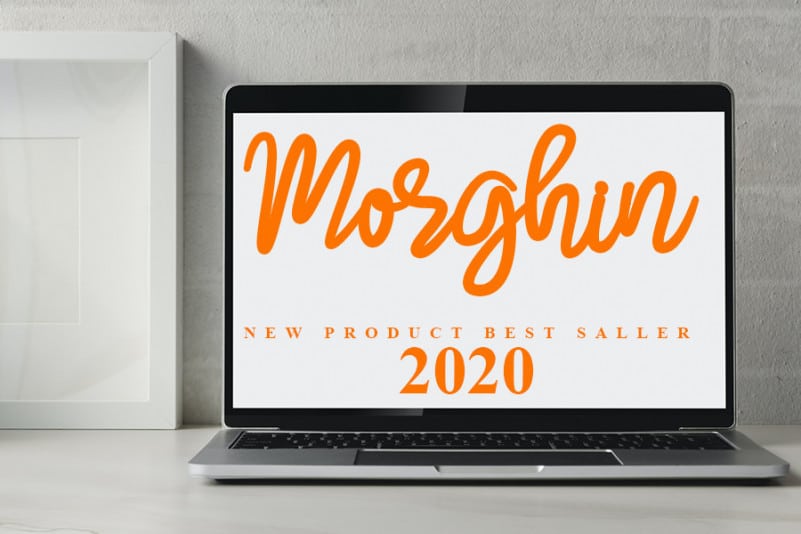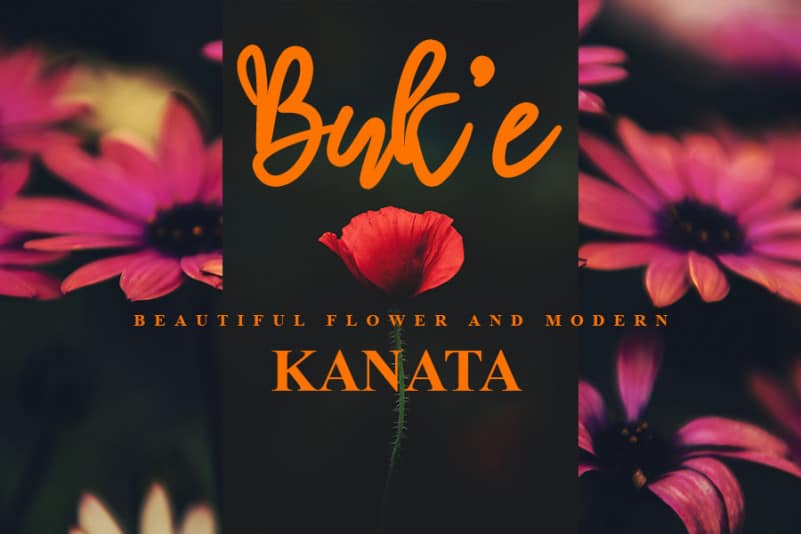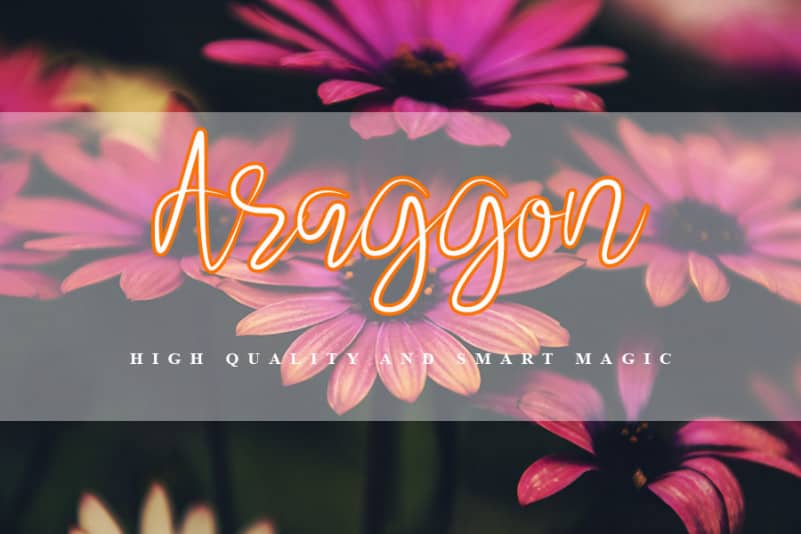
Organya Script Font
Organya Script Font is a great. It maintains its classy calligraphic influences while feeling contemporary and fresh. This versatility will appeal to a wide range of crafty ideas, from letterheads and titles to stationery.
inermediaSTUDIO